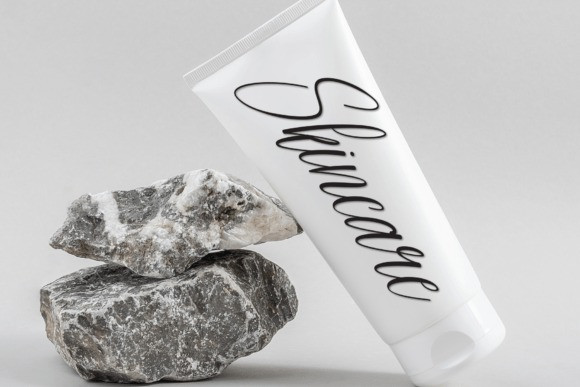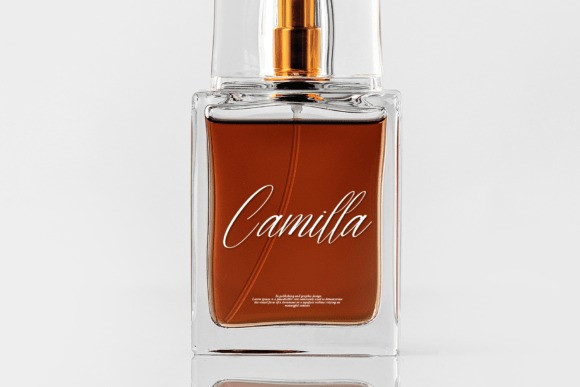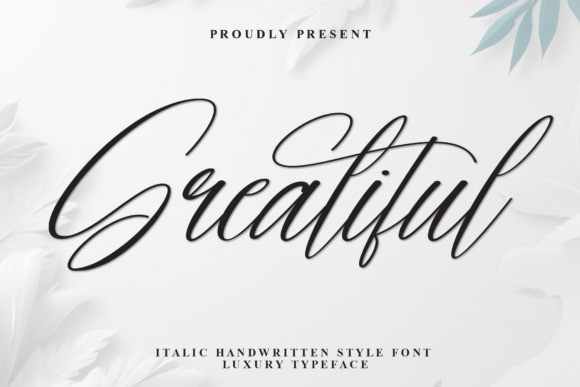
Greatiful Script Font
Greatiful Script Font is a stylish script font that exudes artistic flair and contemporary elegance. Featuring fluid brush strokes, dynamic curves, and expressive letterforms, it captures the essence of hand-painted calligraphy with a modern twist. Ideal for logos, invitations, packaging, and social media graphics, it adds a creative and sophisticated touch to any design. With its natural flow and vibrant character, this font delivers both visual impact and versatility.